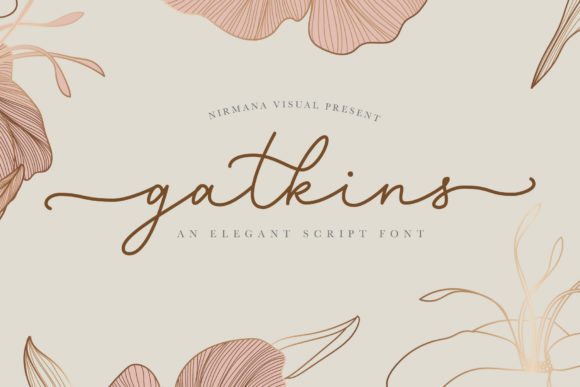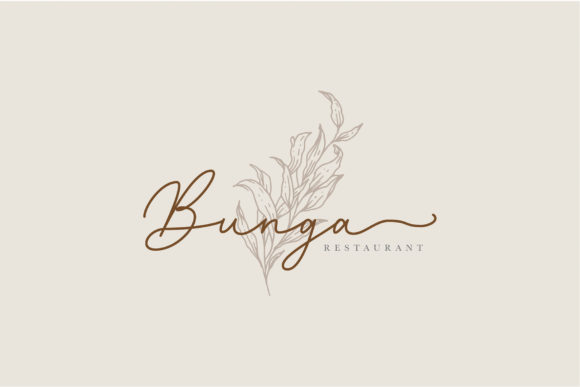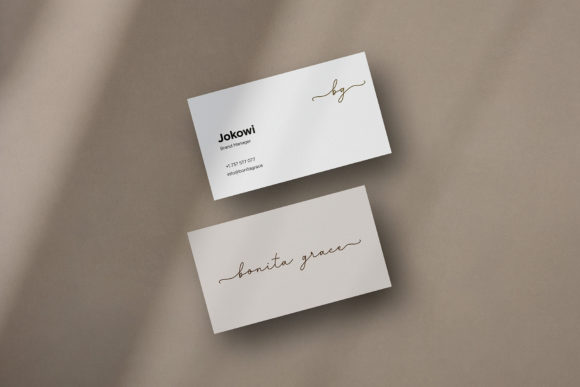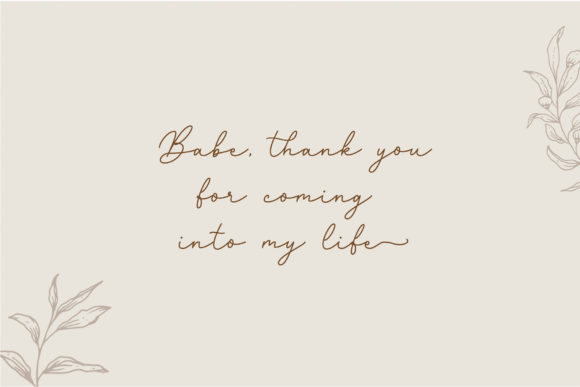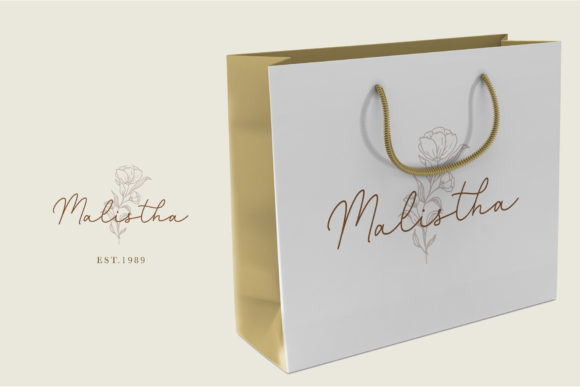
About Gatkins Font
Gatkins is a beautiful and romantic scrip font. This stunning font is a stylish homage to classic calligraphy. It features a varying baseline, smooth lines, gorgeous glyphs and stunning alternates.